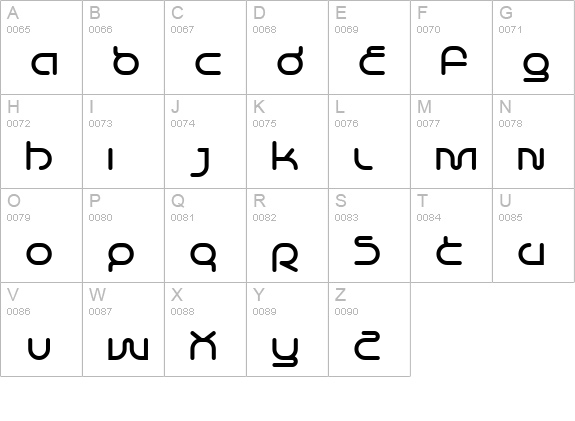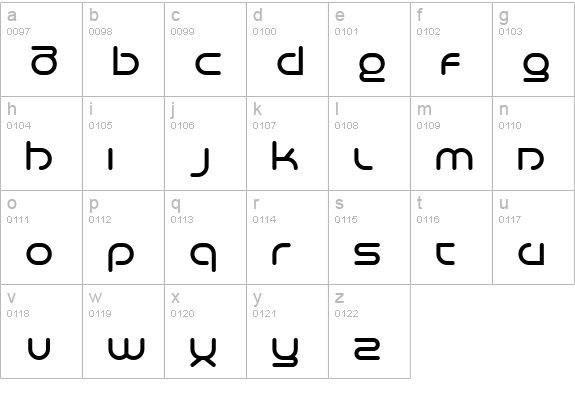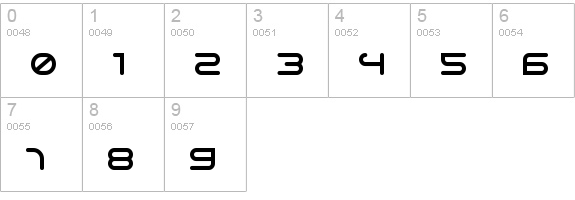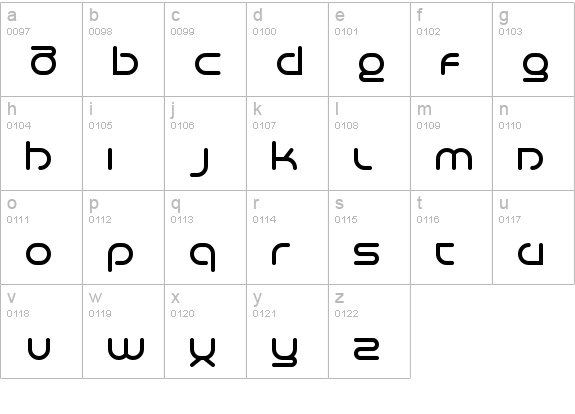
Life in Space Font Details
Life in Space font is a modern and futuristic typeface that perfectly captures the essence of outer space exploration. With its sleek lines and geometric shapes, this font is sure to add a touch of intergalactic flair to any design project. Whether you're creating a poster for a sci-fi movie or designing a website for a tech company, Life in Space font will take your work to new heights. Best of all, Life in Space font is available for free download at FontsMarket.com. That's right, you can get your hands on this amazing font without spending a dime. So why wait? Bring a touch of the cosmos to your designs with Life in Space font today!